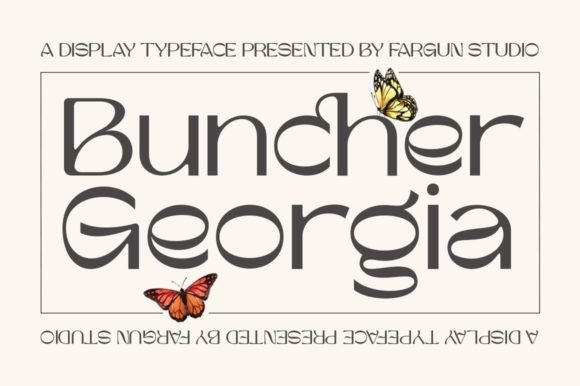
Journey through time with Buncher Georgia, a vintage serif font that captivates with its timeless charm. Inspired by ancient artistry, this font carries the weight of history, whispering tales of a bygone era. It's not just a font; it's a portal to another realm, where creativity reigns supreme.
With Buncher Georgia, you'll step into a world of nostalgia, where retro designs and ancient concepts intertwine harmoniously. Let your imagination soar as you explore the endless possibilities that this font unlocks. From logos that evoke a sense of heritage to posters that capture the essence of tradition, Buncher Georgia is your key to unlocking a world of visual storytelling.
Its meticulously crafted characters exude an air of sophistication, reminiscent of handwritten manuscripts and weathered parchments. The intricate details and elegant curves lend an air of authenticity to your designs, transporting your audience to a time when artistry prevailed.
Buncher Georgia isn't just a font; it's a time machine, taking you on an adventure through the ages. Its versatility knows no bounds, adapting seamlessly to a myriad of creative projects. Whether you're a graphic designer, a web designer, or a social media marketer, Buncher Georgia will elevate your work to new heights.
So, why settle for ordinary fonts when you can embrace the extraordinary? Buncher Georgia is the key to unlocking your creative potential, transforming your designs into masterpieces that resonate with audiences. Download it today and witness the magic unfold.